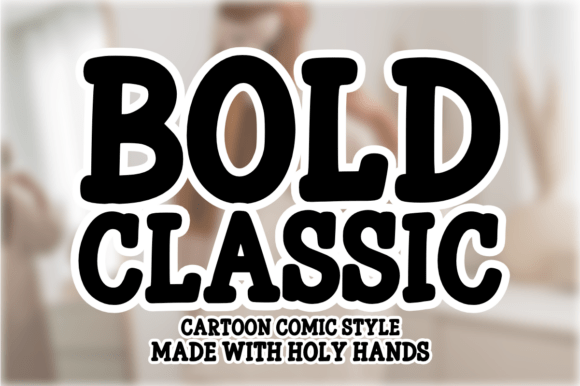
Make Your Designs Pop with Bold Classic – The Ultimate Cartoon Comic Font!
✨ Imagine you’re working on a project, and you’re struggling to find the perfect font to give it that extra oomph. You’re not alone! I’ve been there too. But today, I’m excited to share with you a game-changing solution: Bold Classic, the ultimate cartoon comic font that’s about to take your designs to the next level! ✨
The Design Moment That Inspired It All
I recall working on a superhero-themed party gear project for a client’s kid’s birthday. The client wanted something bold, fun, and eye-catching. I scoured the internet for the perfect font but came up empty-handed. That’s when I realized the need for a font that could deliver a punch of energy and instantly grab attention. And that’s exactly what Bold Classic does!
What Makes Bold Classic So Special?
Bold Classic is a high-impact display font that features thick, chunky characters with a playful rounded finish. Its heavy weight and clean outlines make it the perfect choice for designs that need to be loud, fun, and impossible to miss. Whether you’re creating superhero-themed party gear or bold social media graphics, this font is fully optimized for smooth cutting on Cricut and Silhouette and works perfectly in Canva, Procreate, and Adobe suite.
Features Galore!
• 🔠 Uppercase Alphabet – Massive, rounded letters that command attention.
• 🔢 Numbers & Basic Symbols – Matching heavy-duty digits for all your professional needs.
• 💥 Comic Style Aesthetic – Iconic “pop-art” feel perfect for headlines and logos.
• ✨ The font’s versatility – it can be used for a wide range of projects, from party gear to social media graphics.
• ✅ The clean outlines and heavy weight make it perfect for bold designs.
• 💥 The comic-style aesthetic is sure to grab attention and add a fun touch to your designs.
• 🤔 The font is best used for headlines and titles, as it may be too bold for body text.
• ⚠️ Some users may find the font a bit too chunky for certain design applications.
Bold Classic comes with a range of OpenType features and glyphs that can help you take your designs to the next level. From stylistic alternates to swashes and ligatures, you can experiment with different combinations to add more personality to your designs.
The Backstory Behind Bold Classic
The inspiration behind Bold Classic comes from the classic comic books of the 80s and 90s. The designer wanted to create a font that captured the iconic, bold aesthetic of those comics, while also making it versatile and easy to use. And thus, Bold Classic was born!
Is Bold Classic suitable for body text? While Bold Classic is a beautiful font, it’s best suited for headlines and titles. For body text, you may want to choose a font with a more readable design.